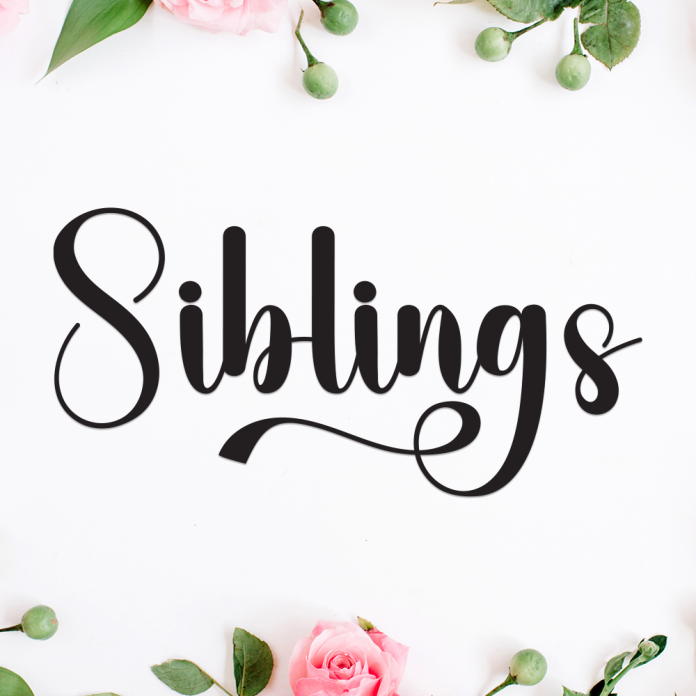
Siblings is a warm and approachable handwriting font that captures the closeness and joy of family bonds. With its smooth curves and playful rhythm, this font feels personal, cheerful, and full of love—just like the relationship between siblings.
Perfect for greeting cards, family quotes, DIY crafts, branding for kids’ products, or any design that needs a friendly and handwritten touch.
Soft, casual handwritten style
Perfectly balanced for warmth and readability
Ideal for family, kids, quotes, and handmade designs
Celebrate love and laughter with Siblings — a handwriting font that brings family spirit to life.